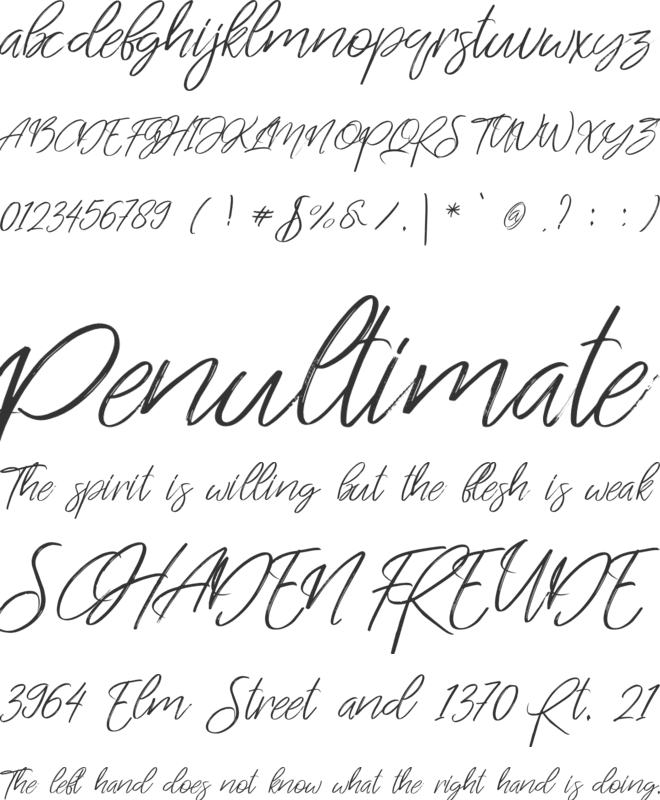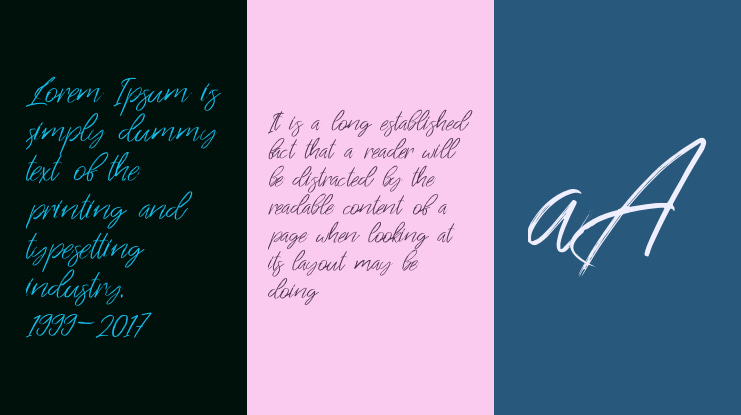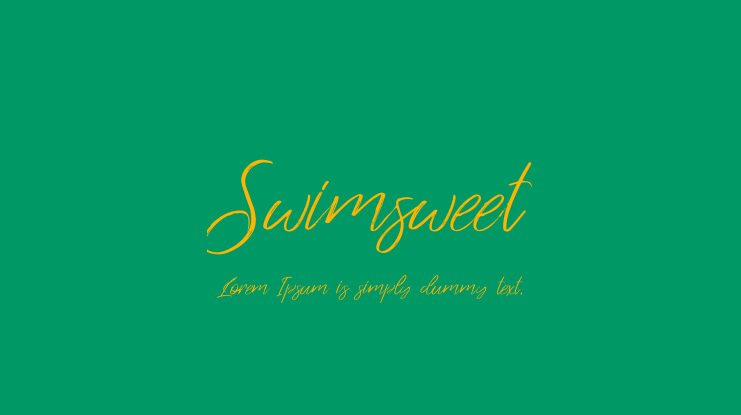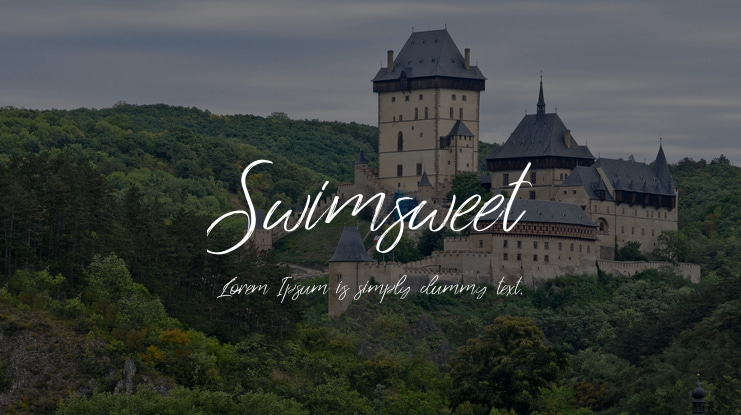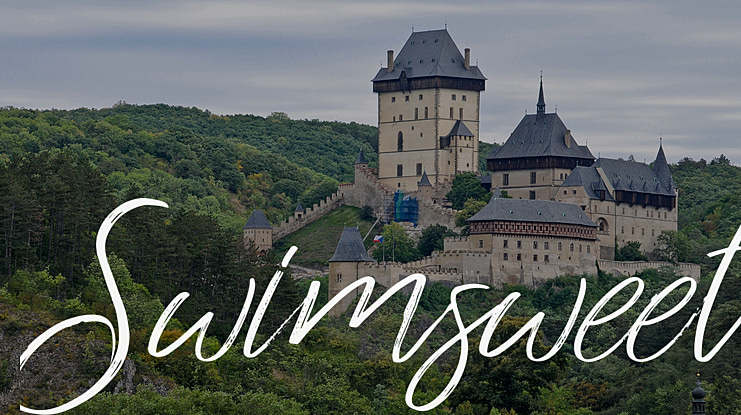
Swimsweet Font
Swimsweet A elegant font script! . Perfect to be used for project with feminine & girly theme! very good for your creative project to create your own customized lettering.